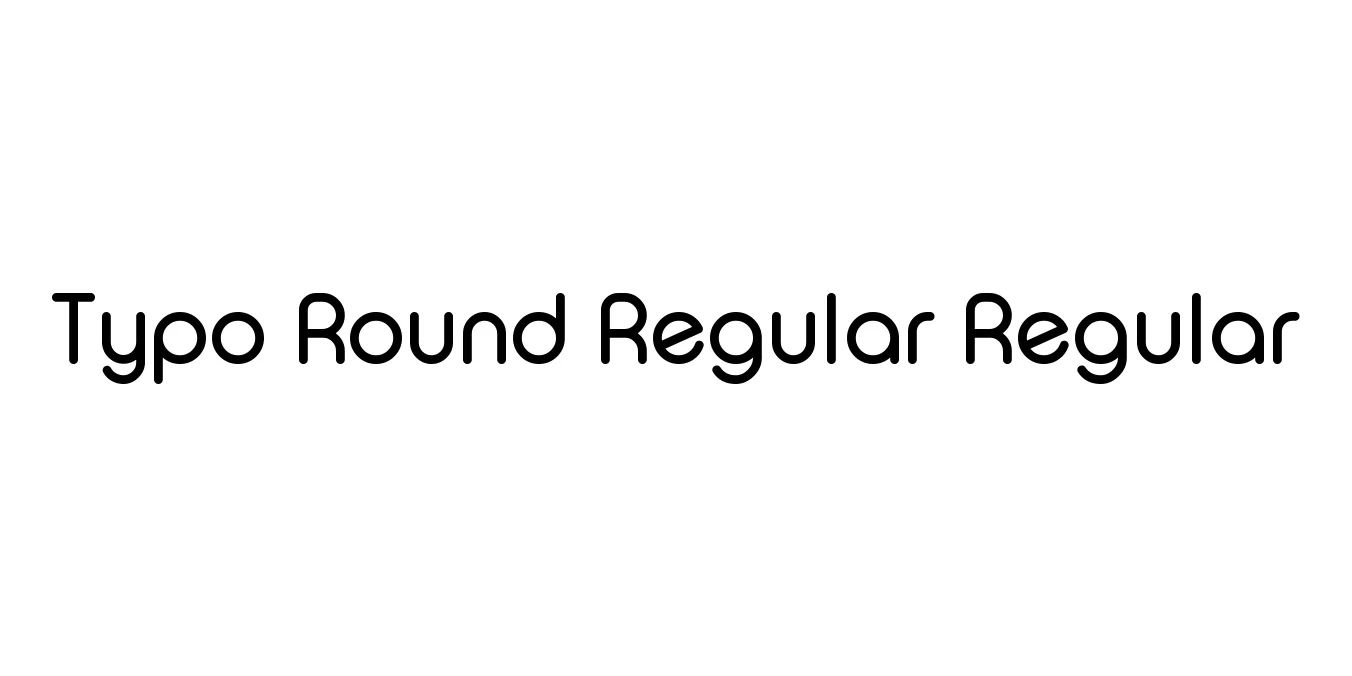
Typo Round Regular Regular
Designed by Studio Typo
Typo Round Regular is a versatile and friendly rounded sans-serif typeface developed by the renowned Studio Typo. It is characterized by its perfectly geometric construction and soft, circular terminals that convey a sense of approachability and modernism. The font was designed to provide a clean aesthetic that balances technical precision with a warm, human touch, making it a standout choice for contemporary design projects.
The Regular weight of this family is particularly noted for its exceptional legibility across both digital and print mediums. Because of its balanced stroke width and open counters, it functions effectively as both a display face for headlines and a readable font for short blocks of body text. Over the years, Typo Round has become a favorite among UI/UX designers and brand specialists who require a typeface that feels professional yet welcoming.
Typo Round Regular Best Uses
Perfect for brands that want to appear friendly, modern, and accessible.
Its geometric clarity ensures high readability on mobile screens and interfaces.
Excellent for tech companies and startups looking for a minimalist but warm identity.
The soft edges make it highly engaging for visual content on platforms like Instagram and Pinterest.